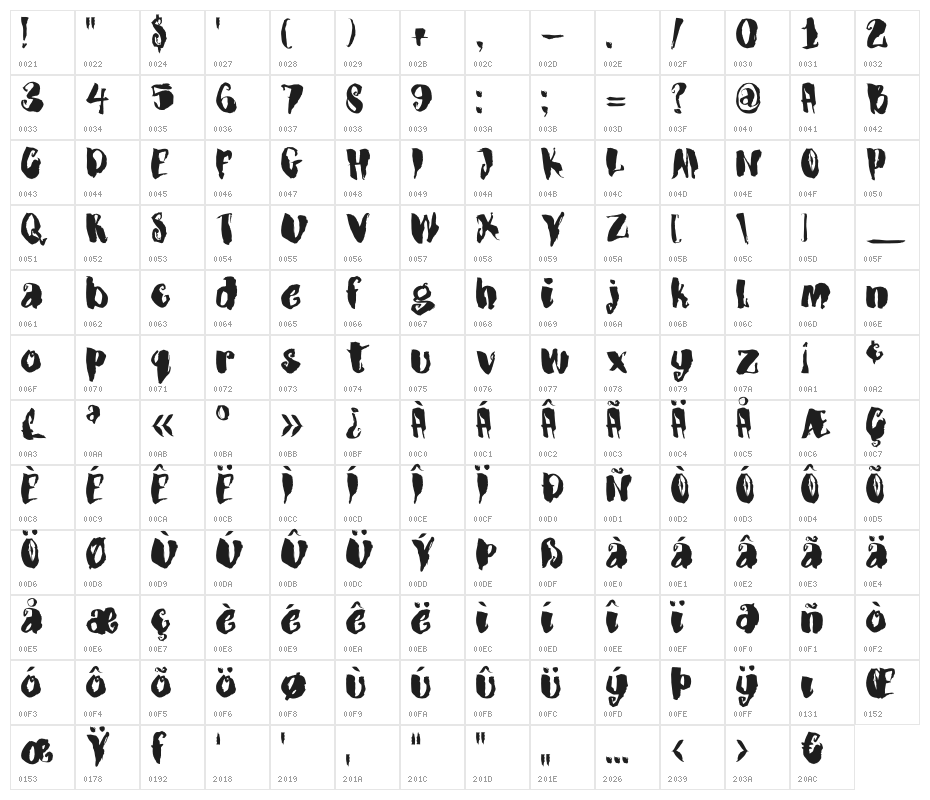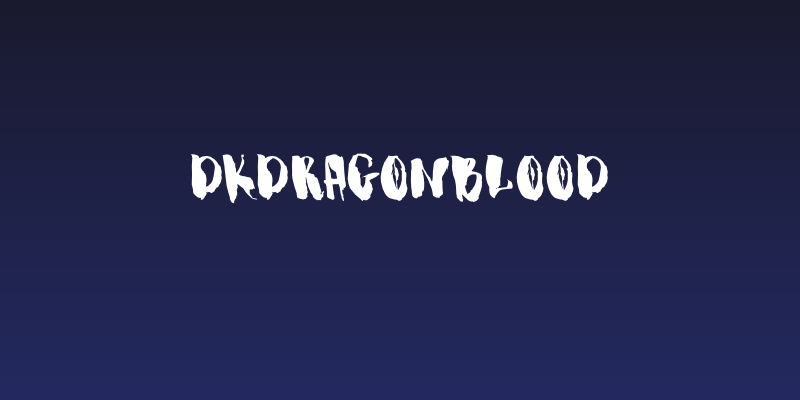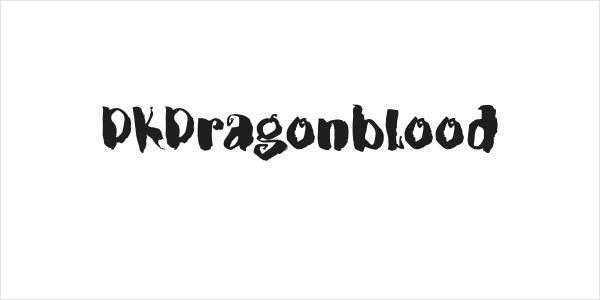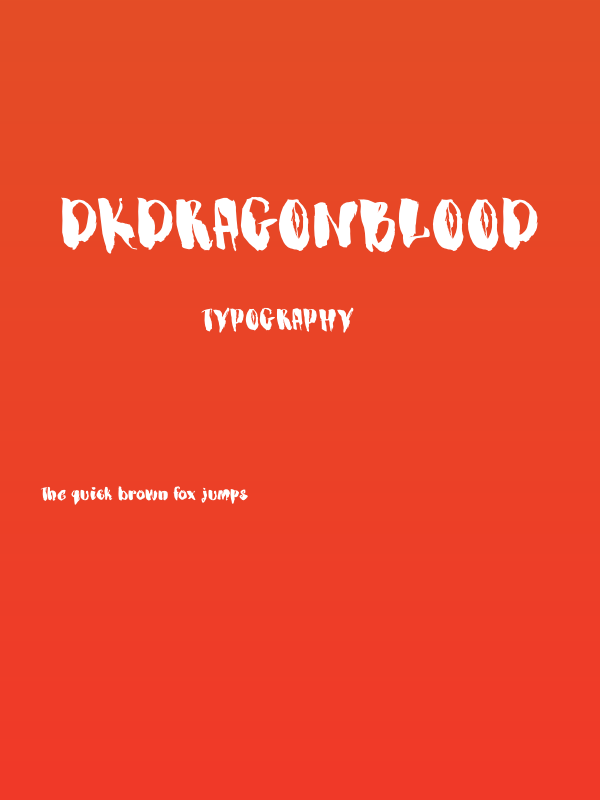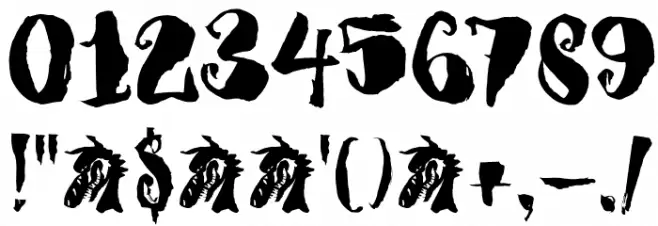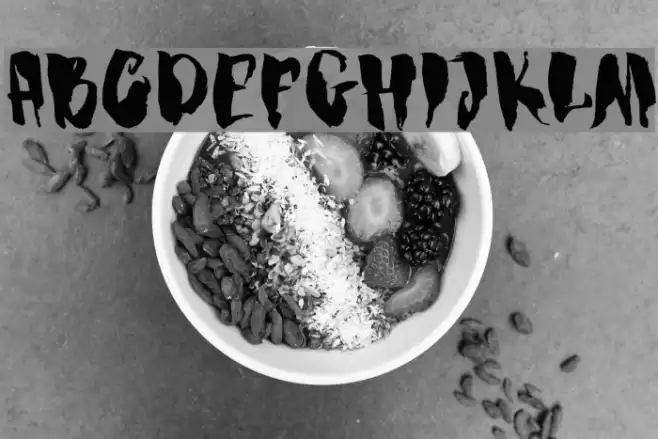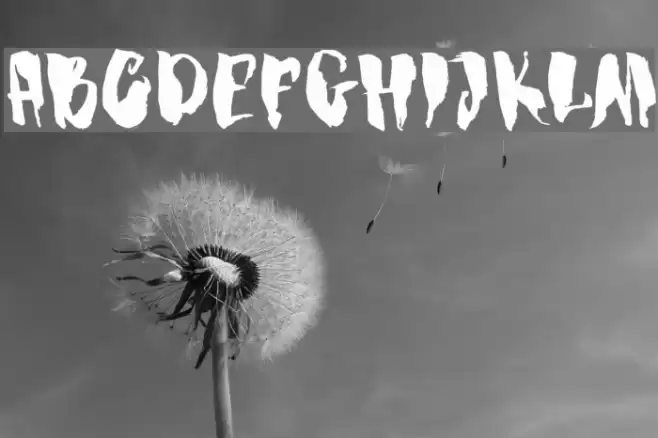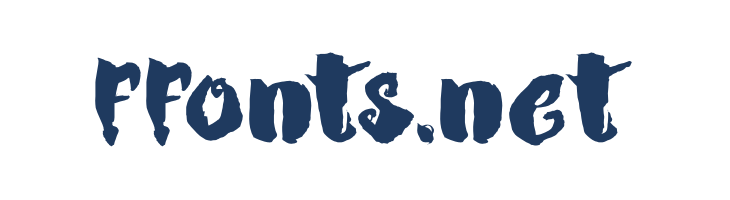
DKDragonblood Font
DKDragonblood Description
This font exudes a bold and dramatic flair, characterized by its thick, brush-like strokes and uneven edges that give it a hand-painted appearance. The uppercase letters are particularly striking, with exaggerated curves and sharp angles that create a sense of movement and energy. The lowercase letters maintain this dynamic style, though they are slightly more restrained, providing a balanced contrast. Numbers and special characters are equally expressive, ensuring consistency across all elements. The overall aesthetic is both artistic and edgy, making it suitable for projects that require a strong visual impact.